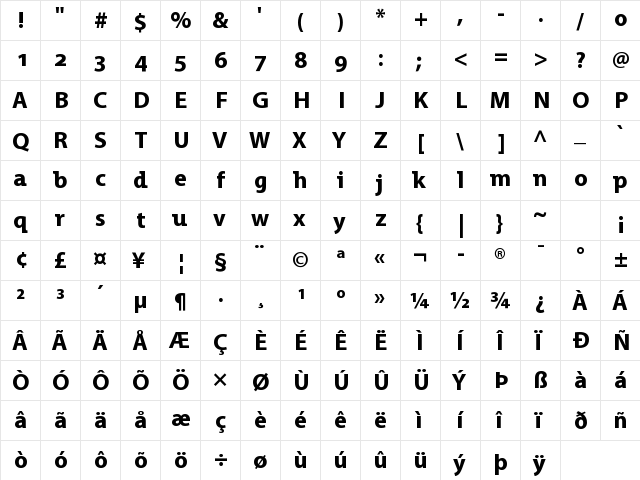
Grandesign Neue Roman Bold
Design Context for Grandesign Neue Roman Typeface
Grandesign Neue Roman is a composed and adaptable typeface that performs quietly and consistently across a wide range of design contexts. Its bold stroke weight gives it real presence on the page.
Pro Tip: Pair Grandesign Neue Roman with a font of contrasting weight or personality to build a more expressive typographic hierarchy.